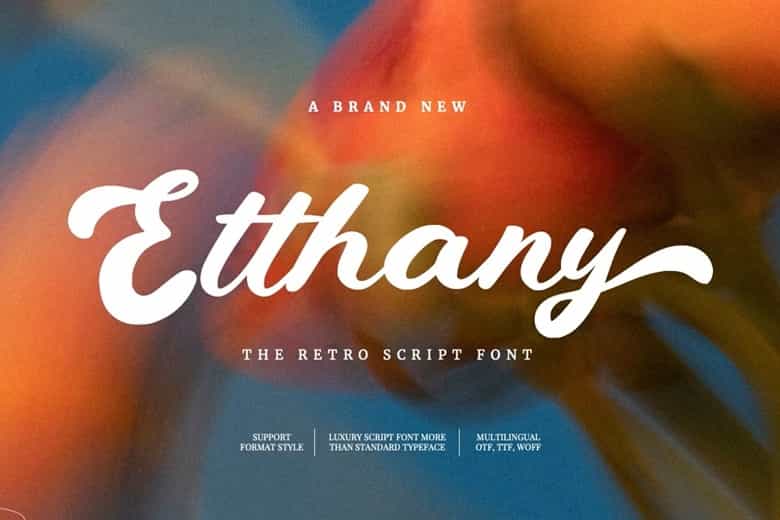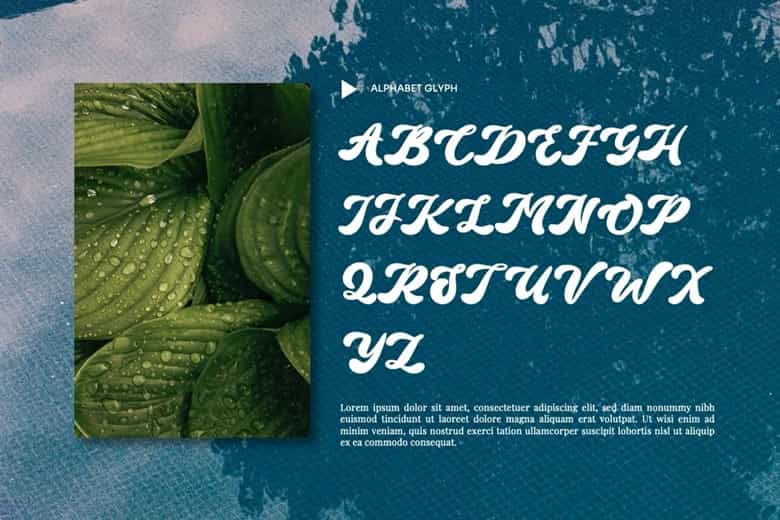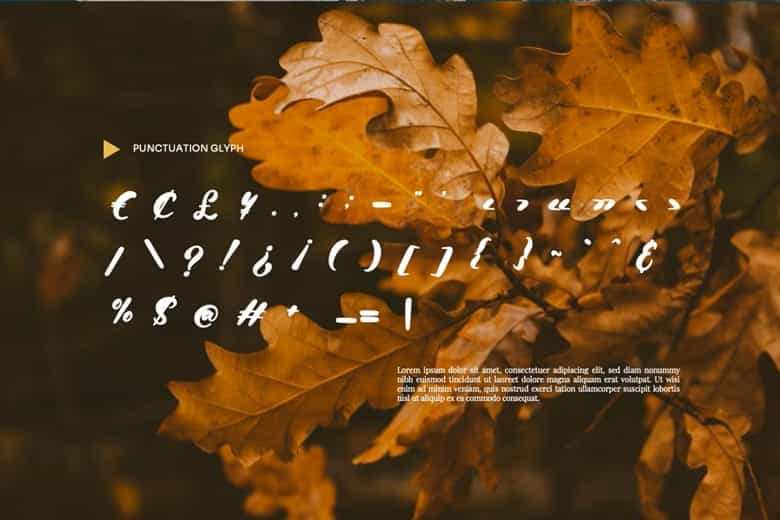
Discover Etthany Font, part of the Calligraphy Retro collection—a versatile and unique font perfect for adding a personal touch to your projects. Download it for free and enjoy crafting designs with style, from invitations to social media posts. This font is available exclusively for personal use, giving you the freedom to create without limits. Unlock your creativity with Etthany Font today!
Etthany – is a delicate, elegant and flowing retro script font. The letter has beautiful as well as a a little swirly embedding, so that if the authors compose this letter with a and ligatures in its blend, the modern font is readied to make a unique statement and add fancy flair to your next design project. Don’t take it away from your most creative thoughts now; see how they come alive with it!